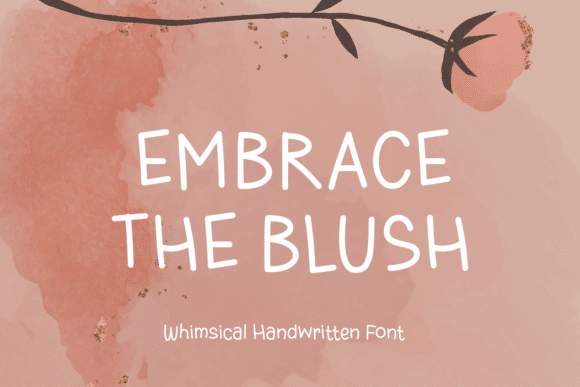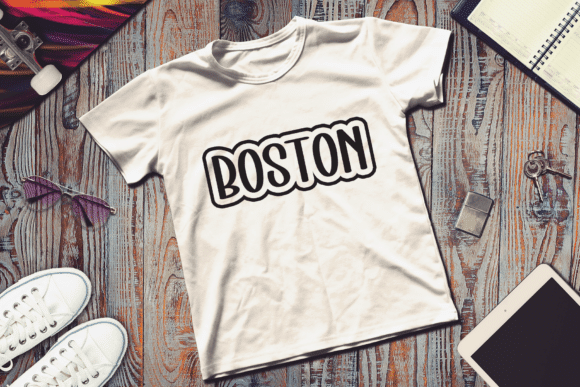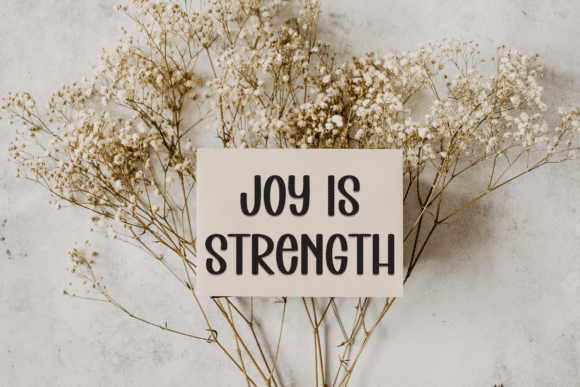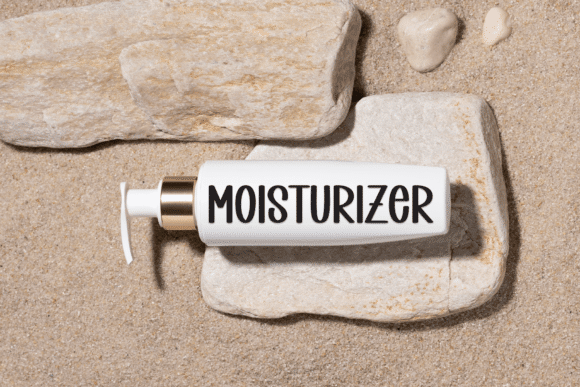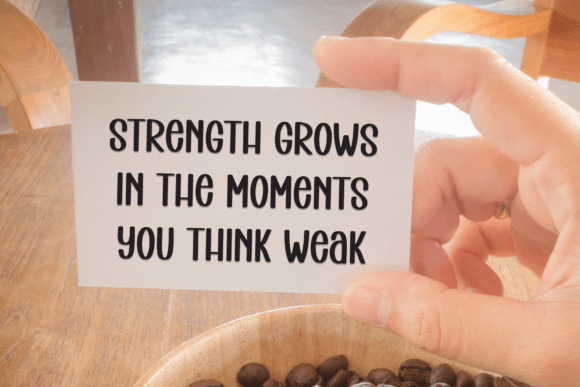
Wednesday Font
Introducing an enchanting handwriting-inspired typeface that exudes charm and friendliness – the perfect touch to enhance your design creations. Brimming with an irresistible, energetic charm, our font is carefully designed to add a touch of elegance to wedding invitations, stationery or any design longing for some spirited panache. Bring happiness to life, express your creativity, and breathe vitality into your designs with this delightful font!